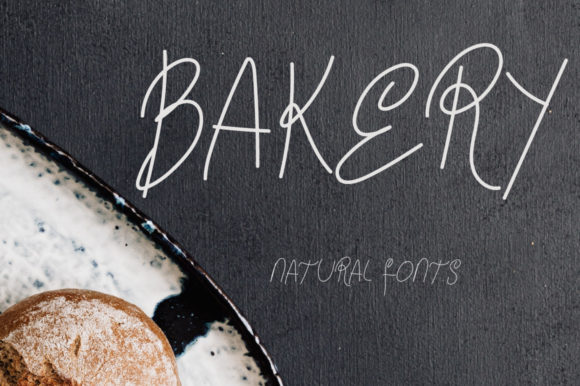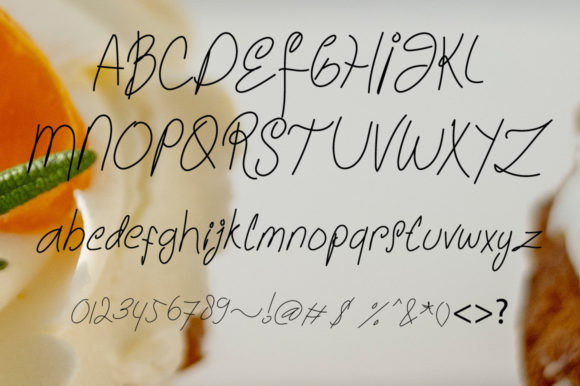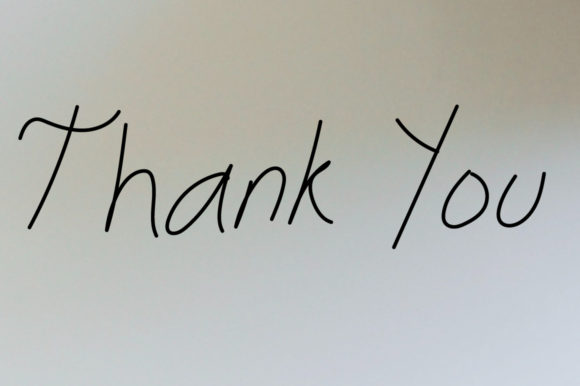
Bakery Font: Adding a Touch of Whimsy to Your Designs
Are you looking for a font that can add a fun and romantic touch to your designs? Look no further than the Bakery font, a beautiful handwritten font that is perfect for a variety of projects. In this article, we’ll take a closer look at the Bakery font, its features, and how you can use it to elevate your designs.
What is Bakery Font?
Bakery font is a type of handwritten font that is designed to mimic the soft, flowing script of a baker’s handwriting. It’s a unique and charming font that is sure to capture the attention of your audience. The font is highly legible and can be used for a wide range of applications, from t-shirts and car decorations to award certificates and cup labels.
Features of Bakery Font
The Bakery font has several features that make it an excellent choice for designers and crafters. Some of its key features include:
- Soft and whimsical design: The Bakery font has a soft, flowing design that gives it a romantic and whimsical feel.
- Highly legible: The font is highly legible, making it perfect for use in a variety of applications, from large signs to small labels.
- Versatile: The Bakery font can be used for a wide range of projects, from t-shirts and car decorations to award certificates and cup labels.
Uses for Bakery Font
The Bakery font is a versatile font that can be used for a wide range of projects. Here are some ideas to get you started:
- T-shirts and hoodies: The Bakery font is perfect for use on t-shirts and hoodies, adding a fun and romantic touch to your designs.
- Car decorations: Add a personal touch to your car decorations with the Bakery font, perfect for monograms, quotes, and more.
- Award certificates: The Bakery font is a great choice for award certificates, adding a touch of elegance and sophistication to your designs.
- Cup labels: Use the Bakery font to create custom cup labels for coffee, tea, or hot chocolate.
- Stationery and invitations: The Bakery font is perfect for use on stationery and invitations, adding a touch of whimsy and romance to your designs.
Tips for Using Bakery Font
Here are some tips for using the Bakery font in your designs:
- Pair with other fonts: The Bakery font pairs well with other fonts, such as sans-serif fonts and script fonts.
- Use in combination with graphics: The Bakery font looks great when used in combination with graphics, such as illustrations and photographs.
- Experiment with colors: The Bakery font looks great in a variety of colors, from bright and bold to soft and pastel.
- Keep it simple: Don’t be afraid to keep it simple and use the Bakery font on its own, without any additional graphics or fonts.
The Bakery font is a beautiful and versatile font that is perfect for designers and crafters. Its soft, whimsical design makes it a great choice for a wide range of projects, from t-shirts and car decorations to award certificates and cup labels. With its highly legible design and ease of use, the Bakery font is sure to become a favorite in your design arsenal.